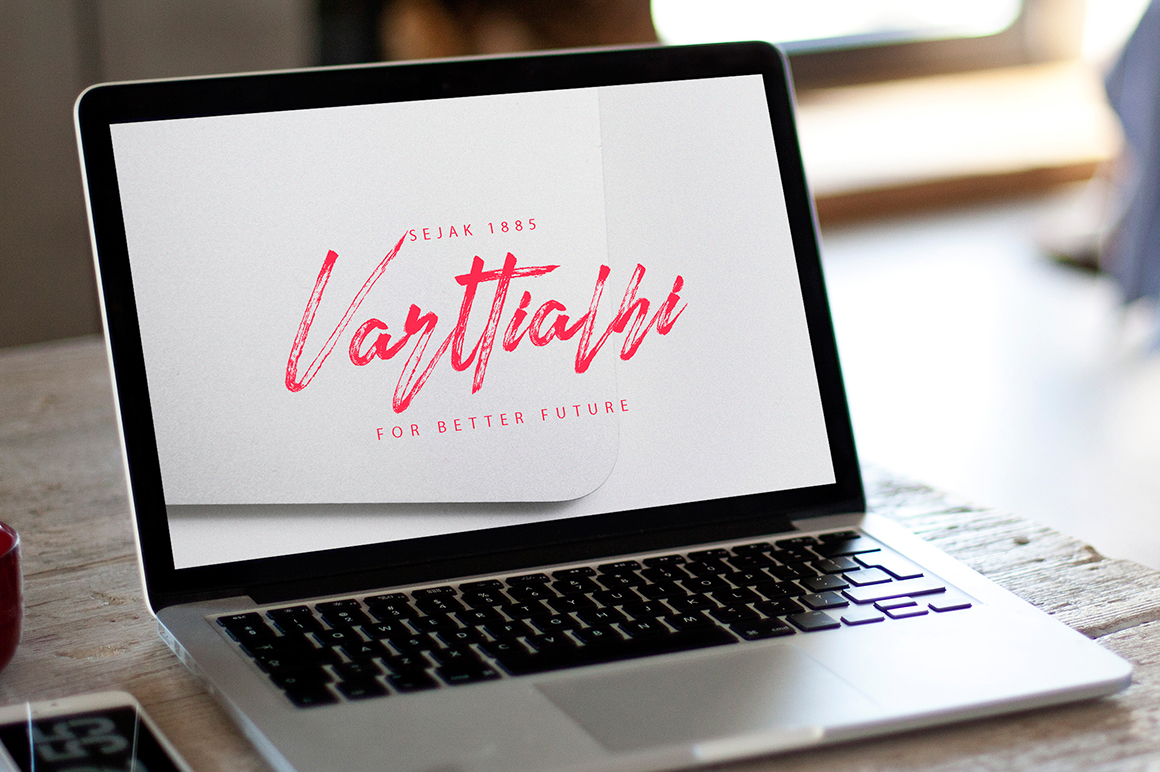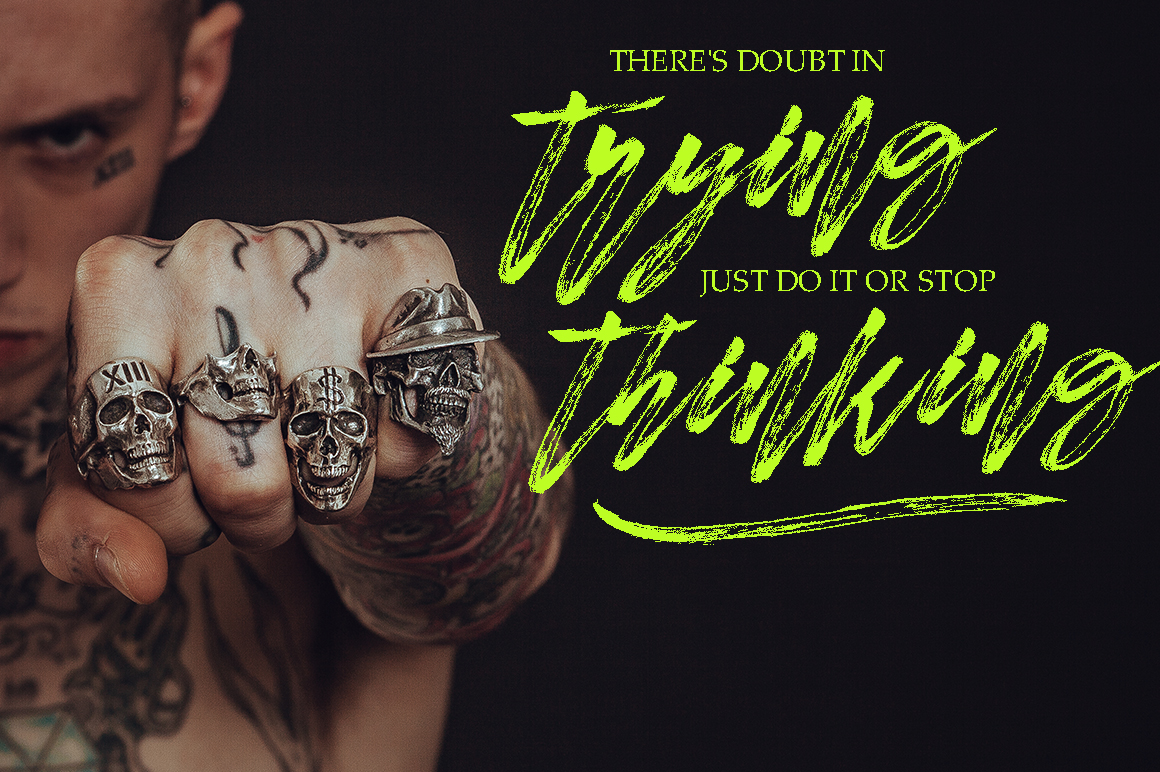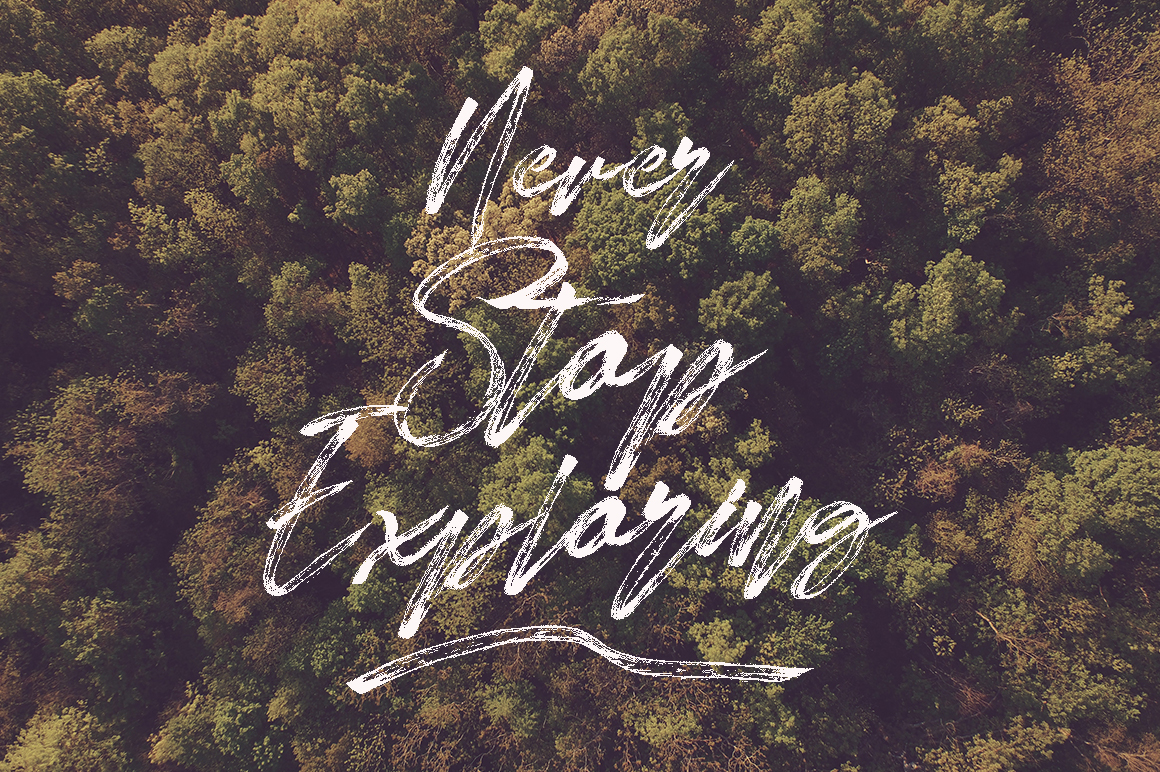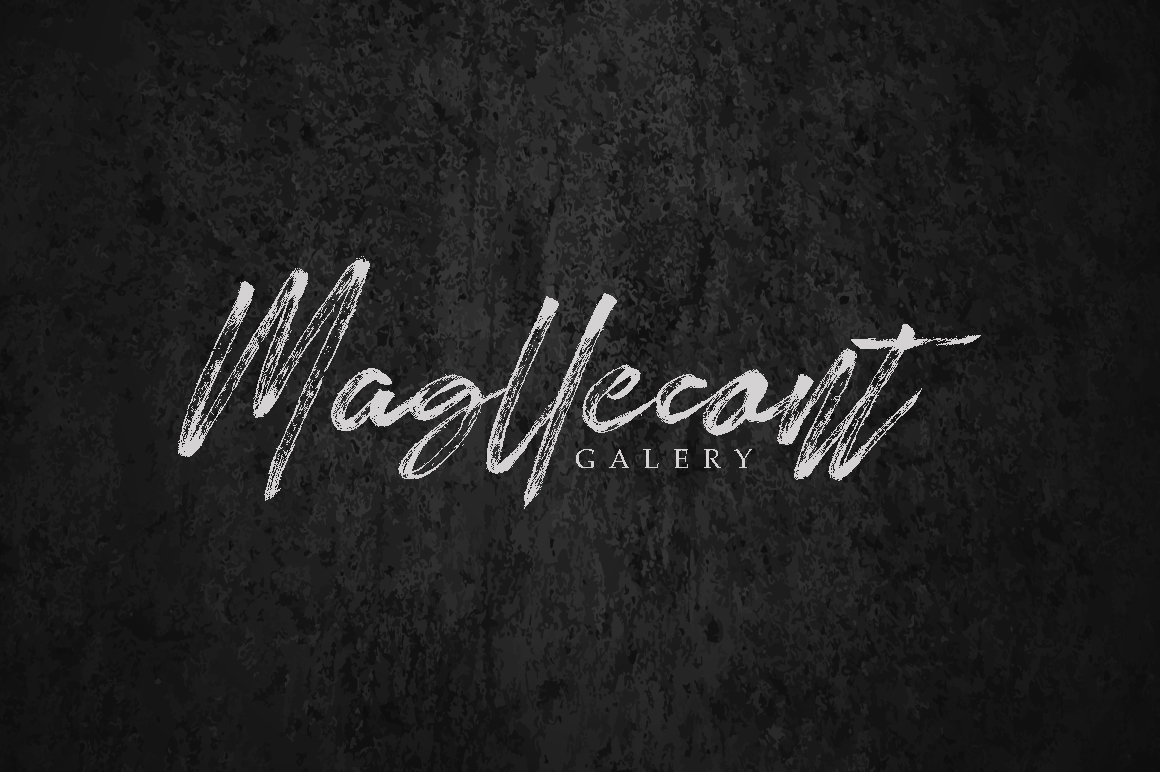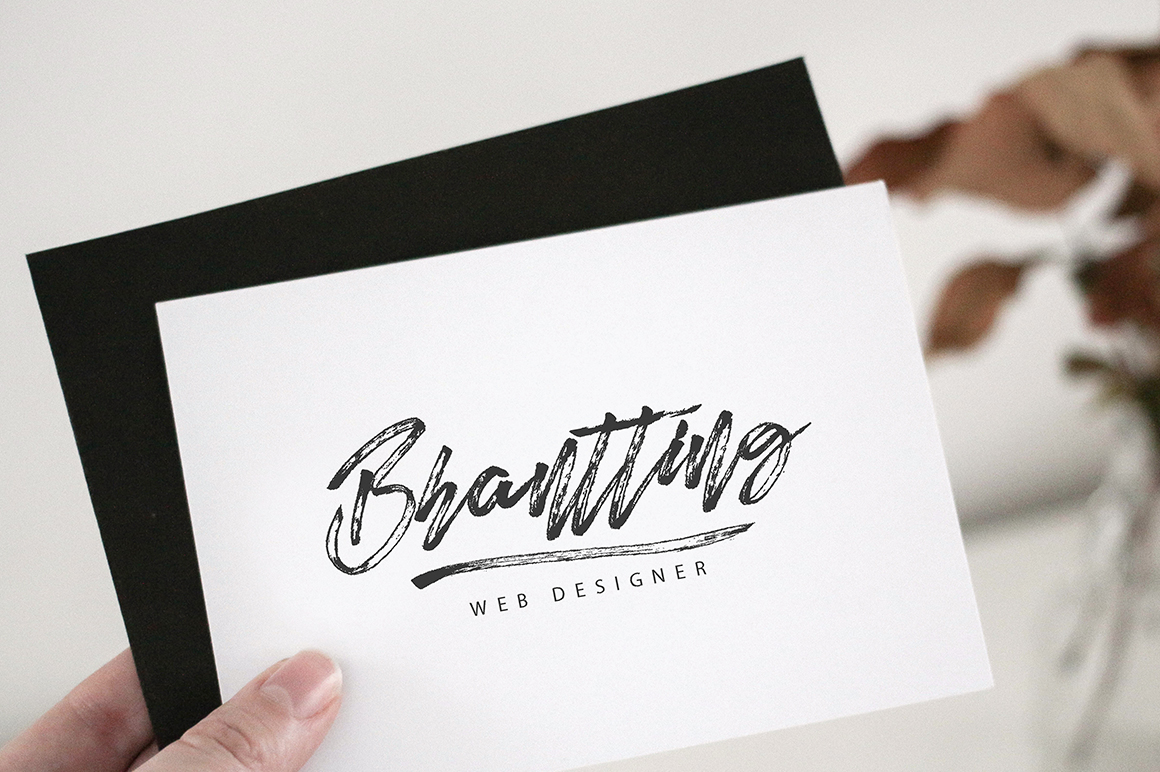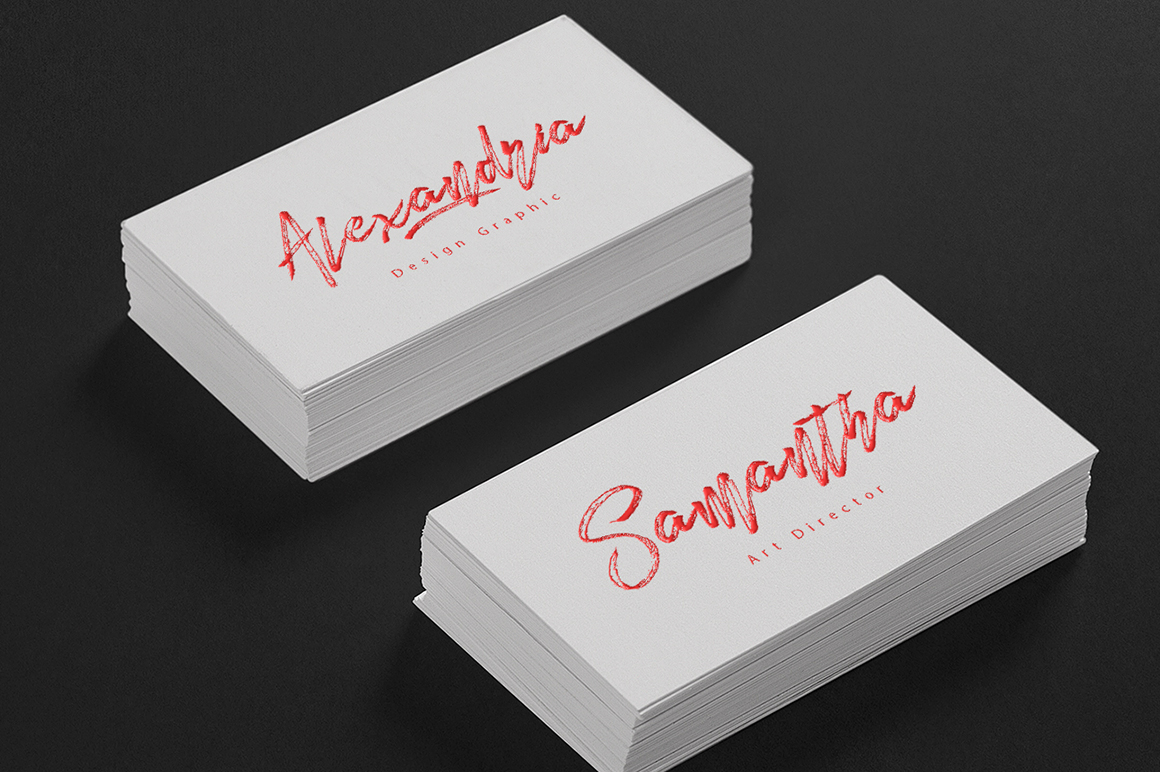
Bettlunerd Font: Elevate Your Designs with a Modern Brush Script
In the world of typography, fonts play a crucial role in conveying the tone and personality of a design. For designers and crafters looking to add a touch of elegance and sophistication to their projects, the Bettlunerd font is an excellent choice. This modern brush font is designed to bring a stylish, personal touch to various designs, making it a versatile addition to any creative arsenal.
What is Bettlunerd Font?
Bettlunerd is a modern brush font that embodies the essence of contemporary script typography. Its unique, hand-brushed texture gives it an organic, yet refined feel that can instantly elevate the visual appeal of any design. Whether you’re working on a logo, branding materials, invitations, or digital content, Bettlunerd offers a distinctive look that sets it apart from more traditional fonts.
Key Features of Bettlunerd Font
- Modern Brush Script: Bettlunerd boasts a fresh, modern aesthetic with the charm of hand-brushed strokes, providing a perfect blend of modernity and personal touch.
- Versatility: This font is incredibly versatile, suitable for a wide range of projects including but not limited to logos, branding, social media graphics, and craft projects.
- Elegant and Sophisticated: The font’s elegant flow and sophisticated look make it ideal for designs that require a touch of luxury or personal flair.
Tips for Using Bettlunerd Font Effectively
To maximize the impact of Bettlunerd font in your designs, consider the following tips:
- Combine with Solids: Pair Bettlunerd with solid colors or gradients that complement its texture for a striking effect.
- Experiment with Sizes: Play with different font sizes to create visual hierarchy and emphasize key messages.
- Mix with Other Fonts: Use Bettlunerd in combination with other fonts for contrast, ensuring your design remains balanced and readable.
- Consider the Background: Choose backgrounds that enhance the visibility of the font’s texture, adding depth to your design.
Bettlunerd font is a powerful tool for designers and crafters aiming to infuse their projects with a modern, stylish flair. Its unique blend of contemporary brush script and elegance makes it an excellent choice for a wide array of applications. By incorporating Bettlunerd into your design repertoire, you can create visually stunning and memorable pieces that stand out in a crowded digital landscape. Whether you’re crafting a brand identity, creating digital content, or working on personal projects, Bettlunerd is poised to become your go-to font for adding that special touch of sophistication and personality.